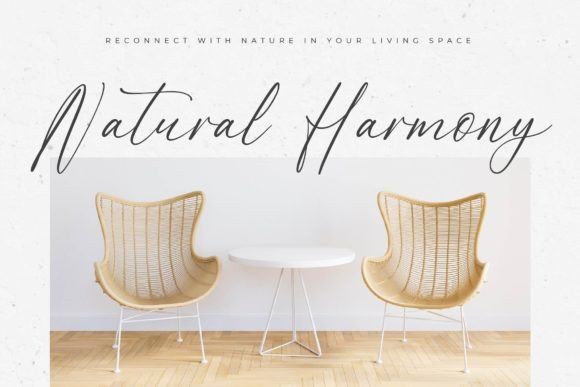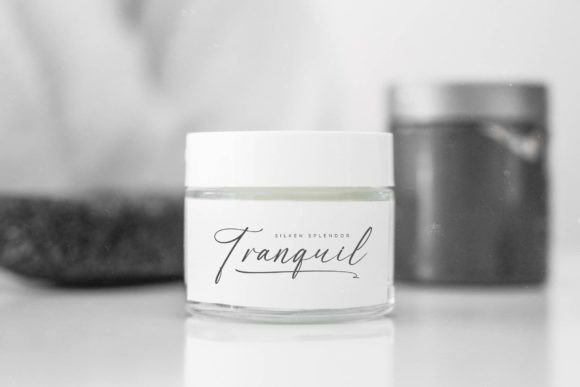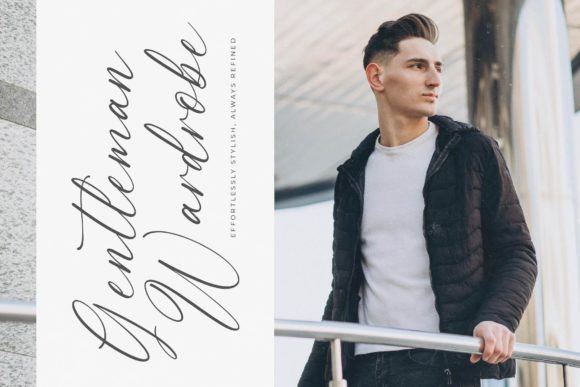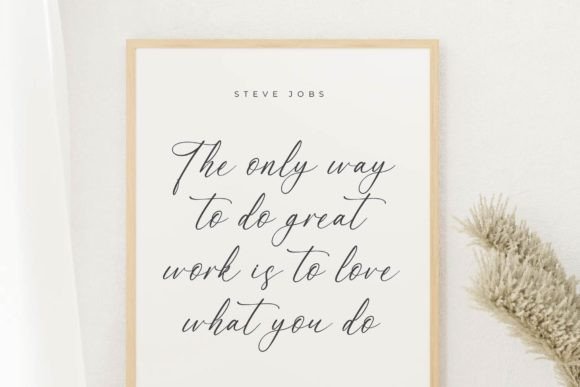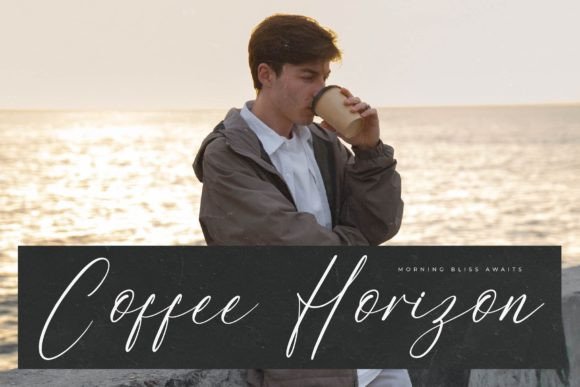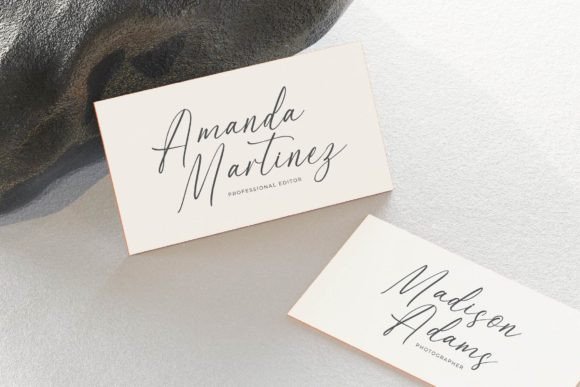
Discover the Elegance of Andrea Carter Font: Elevate Your Designs with Sophistication
In the world of typography, few fonts manage to strike a balance between elegance and personality as effectively as Andrea Carter. This stylish handwritten font has captured the hearts of designers and crafters alike with its fluid, graceful strokes and sophisticated character. Whether you’re working on chic branding, elegant invitations, or fashionable editorial designs, Andrea Carter is the perfect choice to add a touch of refined beauty and charm to your projects.
The Unique Charm of Andrea Carter Font
Andrea Carter stands out in the realm of handwritten fonts due to its unique blend of elegance and approachability. Each letter is crafted with precision, showcasing fluid strokes that dance across the page with a grace that is both captivating and stylish. The font’s design exudes a sense of sophistication, making it an excellent choice for projects that demand a high level of refinement.
One of the key advantages of Andrea Carter is its versatility. This font is not limited to a single type of project; rather, it can be seamlessly integrated into a wide range of designs. For branding, Andrea Carter offers a level of elegance and sophistication that can elevate a company’s image, making it more appealing to discerning customers. In the realm of invitations, it adds a touch of class and personal warmth, perfect for weddings, galas, and other formal events. For editorial designs, Andrea Carter brings a level of chic sophistication that can enhance the aesthetic appeal of magazines, blogs, and digital publications.
Andrea Carter is more than just a font; it’s a tool that empowers designers and crafters to bring their creative visions to life. Its user-friendly design makes it accessible for a wide range of applications, from digital projects to print materials. Designers will appreciate the font’s clarity and legibility, which ensure that their work remains stylish yet readable. Crafters, on the other hand, will love the personal touch that Andrea Carter brings to their handmade projects, such as greeting cards, scrapbooking, and DIY crafts.
Enhance Your Projects with Andrea Carter
Incorporating Andrea Carter into your projects is a straightforward process that can significantly enhance their visual appeal. Here are a few tips on how to make the most of this elegant font:
- Pair it with complementary fonts: Andrea Carter pairs well with clean sans-serif fonts for a modern contrast or with other script fonts for a layered, elegant look.
- Experiment with colors: While Andrea Carter looks stunning in classic black and white, don’t be afraid to experiment with colors that match your project’s theme.
- Play with sizes: The font’s versatility shines when used in various sizes, from large headings to smaller body text.
Andrea Carter is more than just a font; it’s a statement of elegance and sophistication. Its fluid strokes, sophisticated character, and versatile nature make it an invaluable asset for designers and crafters looking to elevate their projects. Whether you’re aiming to create chic branding, elegant invitations, or fashionable editorial designs, Andrea Carter offers the perfect blend of style and charm. Discover the refined beauty of Andrea Carter and take your designs to new heights of sophistication and allure.